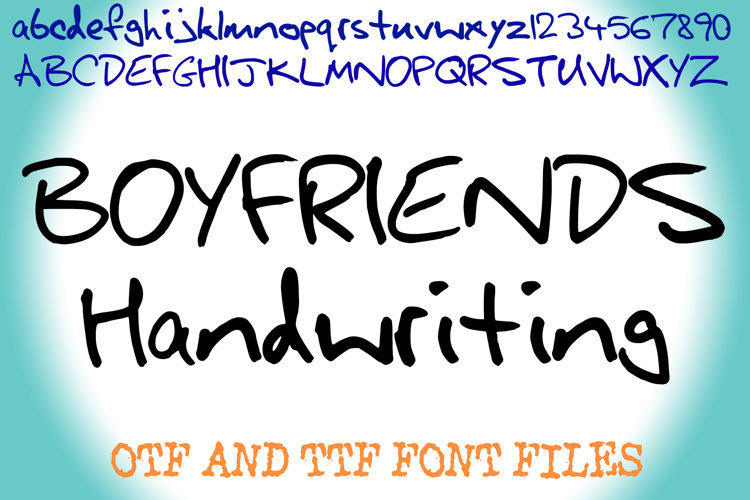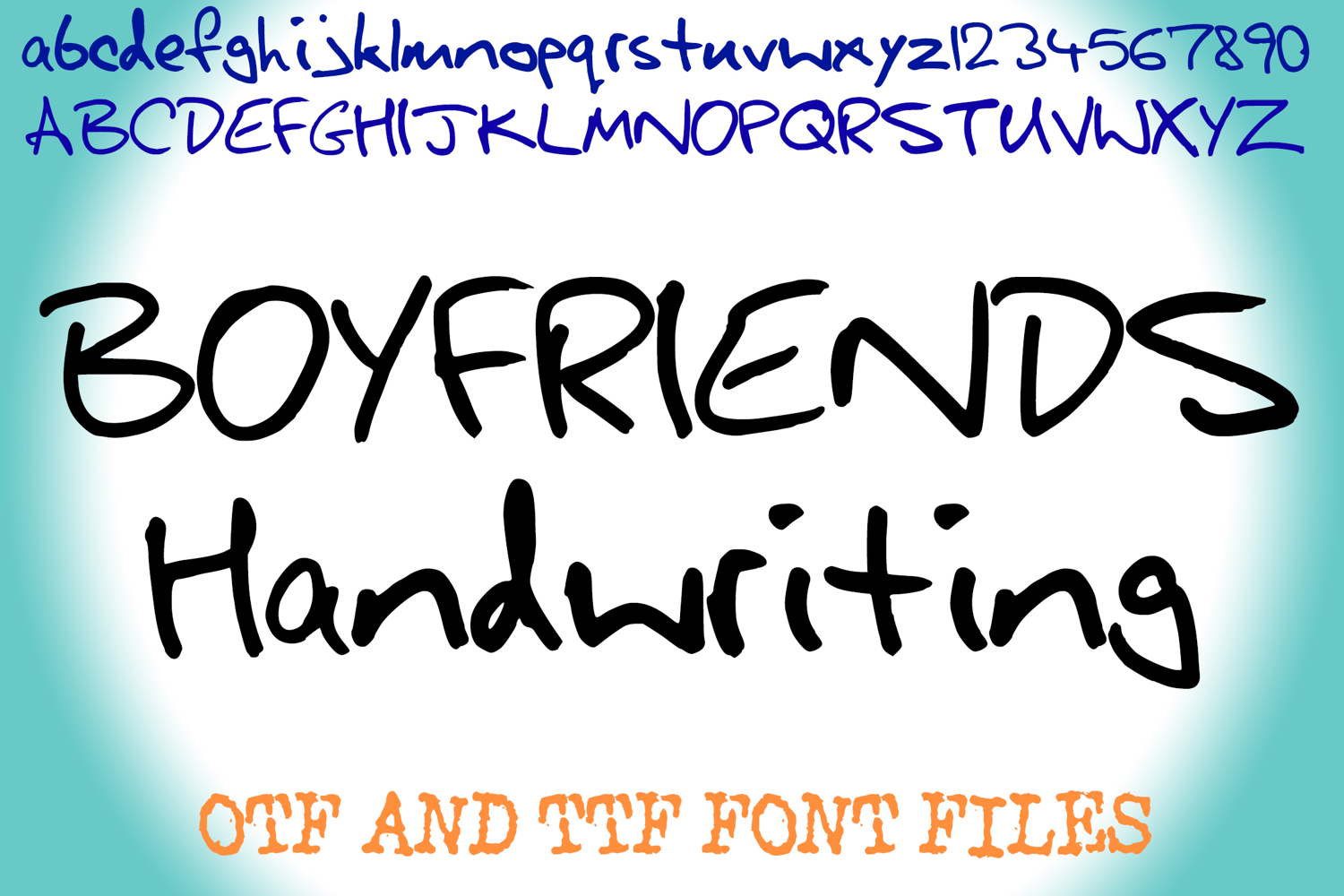
Skip the digital imitations and choose the Boyfriends Handwriting Font for a look that is derived from real handwriting. This font was meticulously captured from actual pen-on-paper strokes to ensure that every curve and connection feels sincere and human. Because it is based on real penmanship, it offers a relaxed, "lived-in" aesthetic that perfectly balances a messy vibe with high legibility.
Whether you are designing heartfelt social media quotes, personalized digital planner pages, or boutique branding, this font brings a level of authenticity that standard typefaces cannot match.
Real Handwriting Origin: Created from actual handwriting to ensure a 100% authentic, non-digital look.
Perfectly Imperfect: The irregular strokes and natural rhythm replicate the charm of a quick note or journal entry.
Versatile Casing: Includes both lowercase and uppercase characters for a realistic writing flow.
Personalized Branding: Add a "human" element to boutique logos, handmade product labels, and business stationery.
Digital Journaling: Perfect for GoodNotes and Notability users who want their digital notes to look like real penmanship.
Social Media & Content: Use it for authentic Instagram stories, relatable TikTok captions, and "lifestyle" YouTube thumbnails.
Personalized Gifts: Create custom "thank you" notes, wedding signage, and sentimental cards that feel hand-written.